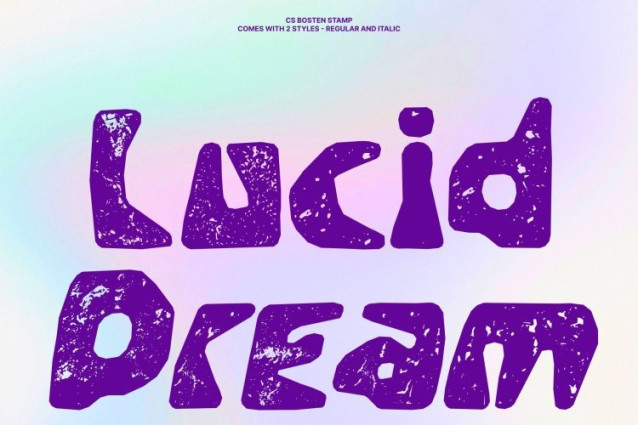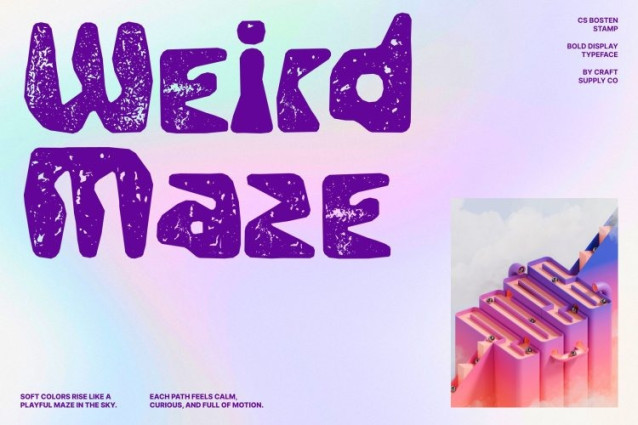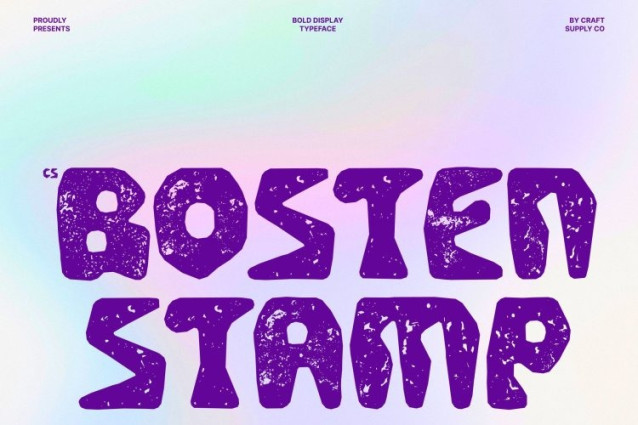
CS Bosten Stamp Font
CS Bosten Stamp Font – This amplifies its bold, unconventional spirit with a rugged stamped texture that enhances its rebellious character. The eccentric and experimental forms remain unapologetically expressive, now layered with subtle ink variations and distressed edges that give the design a gritty, handcrafted feel. This added texture intensifies its raw visual impact.
Creative Distortion Meets Organic Imperfection
The font’s signature distortions and asymmetrical shapes become even more dynamic through the stamped treatment. Warped strokes, unexpected angles, and bold style fusions gain tactile depth, making each letter feel physically imprinted rather than digitally constructed. The combination of structured chaos and textured finish creates a striking balance between artistic freedom and visual weight.
Funky, Loud, and Unfiltered
This font thrives on expressive energy. Its funky personality is heightened by the imperfect, print-inspired detailing, giving it an underground, poster-like aesthetic. The result is visually loud, full of movement, and packed with attitude perfect for designs that demand attention and individuality.
Ideal for Bold and Avant-Garde Projects
From alternative music posters and experimental branding to avant-garde editorials and artistic campaigns, delivers a fearless typographic voice. It’s designed for creatives who dare to break conventions and embrace expressive imperfection, turning every composition into a powerful visual statement.